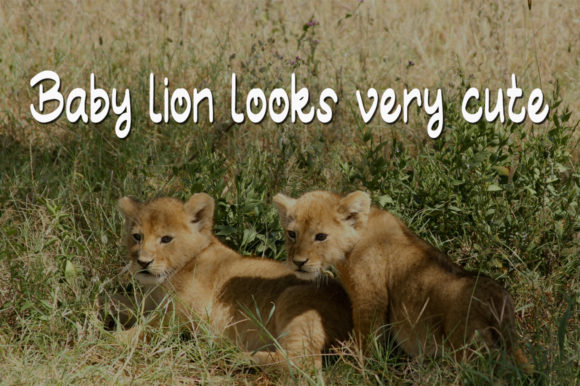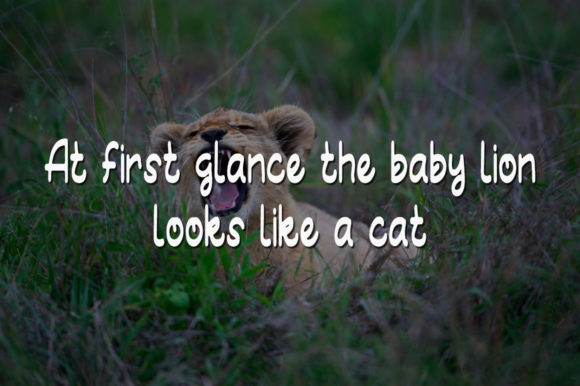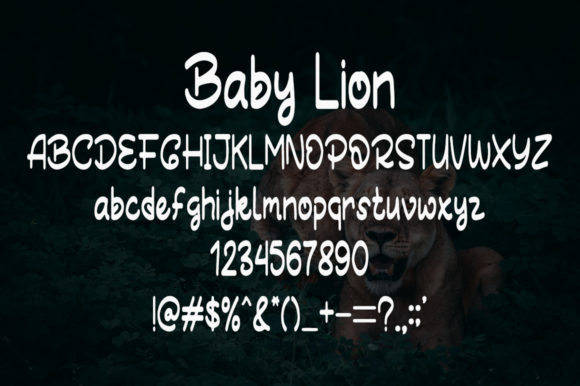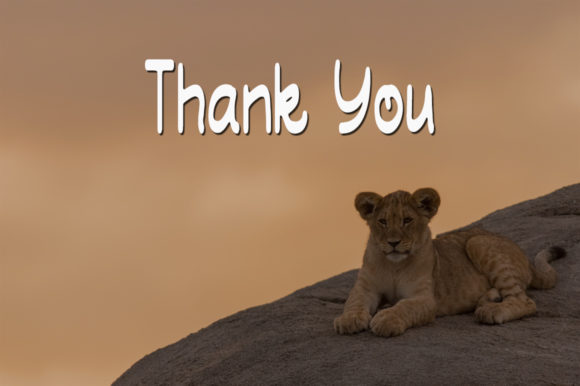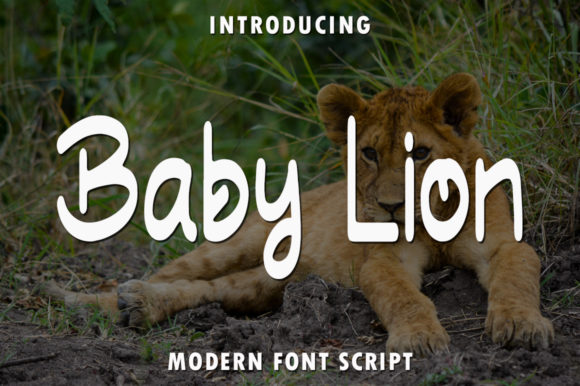
Baby Lion Font: The Delicate and Elegant Choice for Your Designs
Are you looking for a font that exudes elegance and sophistication? Look no further than the Baby Lion Font. This delicate and elegant handwritten font is perfect for designers and crafters who want to add a touch of whimsy and charm to their designs. With its distinct and well-rounded letters, Baby Lion Font is a masterpiece that will make your designs stand out from the crowd.
The Characteristics of Baby Lion Font
Baby Lion Font is a unique and versatile font that boasts a range of characteristics that make it perfect for a variety of design projects. Some of its key features include:
- Delicate and Elegant: Baby Lion Font is a delicate and elegant handwritten font that is perfect for designs that require a touch of sophistication and whimsy.
- Distinct and Well-Rounded Letters: The font features distinct and well-rounded letters that make it easy to read and recognize.
- Incredibly Versatile: Baby Lion Font is incredibly versatile and can be used for a range of design projects, from invitations and greeting cards to branding and packaging.
Why Choose Baby Lion Font?
There are many reasons why designers and crafters choose Baby Lion Font for their projects. Here are just a few:
- Unique and Eye-Catching: Baby Lion Font is a unique and eye-catching font that will make your designs stand out from the crowd.
- Easy to Read: The font is easy to read and recognize, making it perfect for designs that require a clear and concise message.
- Versatile: Baby Lion Font is incredibly versatile and can be used for a range of design projects, from formal and informal designs.
- High-Quality: The font is of high-quality and is perfect for professional designs.
How to Use Baby Lion Font
Baby Lion Font is easy to use and can be incorporated into a range of design projects. Here are a few ideas to get you started:
- Invitations: Use Baby Lion Font to create beautiful and elegant invitations for weddings, baby showers, and other special occasions.
- Greeting Cards: The font is perfect for creating greeting cards for birthdays, holidays, and other special occasions.
- Branding and Packaging: Use Baby Lion Font to create unique and eye-catching branding and packaging for your products.
- Signage: The font is perfect for creating signs for events, businesses, and other purposes.
Tips for Using Baby Lion Font
Here are a few tips for using Baby Lion Font:
- Use it Sparingly: While Baby Lion Font is beautiful and elegant, it can be overwhelming if used too much. Use it sparingly to create a clear and concise message.
- Pair it with Other Fonts: The font pairs well with other fonts, so feel free to experiment with different combinations to create a unique look.
- Experiment with Colors: Baby Lion Font looks great in a range of colors, so don’t be afraid to experiment with different colors to find the perfect one for your design.
In conclusion, Baby Lion Font is a delicate and elegant handwritten font that is perfect for designers and crafters who want to add a touch of whimsy and charm to their designs. With its distinct and well-rounded letters, Baby Lion Font is a masterpiece that will make your designs stand out from the crowd. Its versatility, readability, and high-quality make it perfect for a range of design projects, from invitations and greeting cards to branding and packaging.